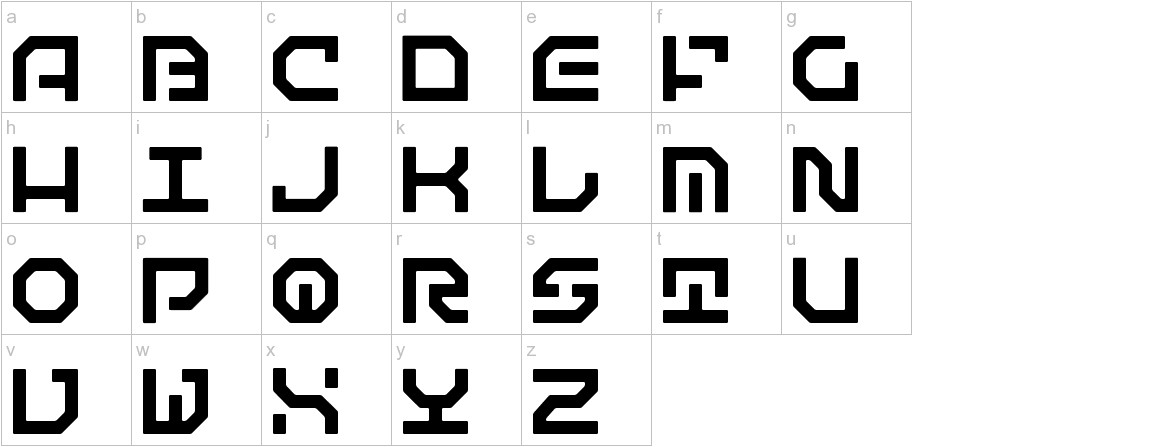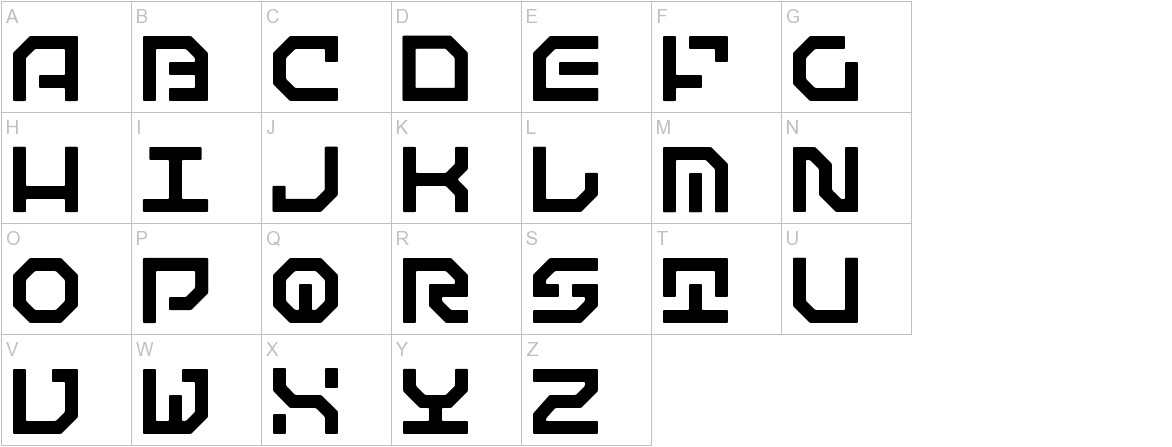
Matematica
Matematica is a rounded, unicase, mono-spaced, pseudo-bitmap typeface constructed on a 5-by-5 grid. Relying on the most basic geometric shapes, the typeface draws heavily on the work of Dutch typographer, Jurriaan Schrofer (1926?1990).